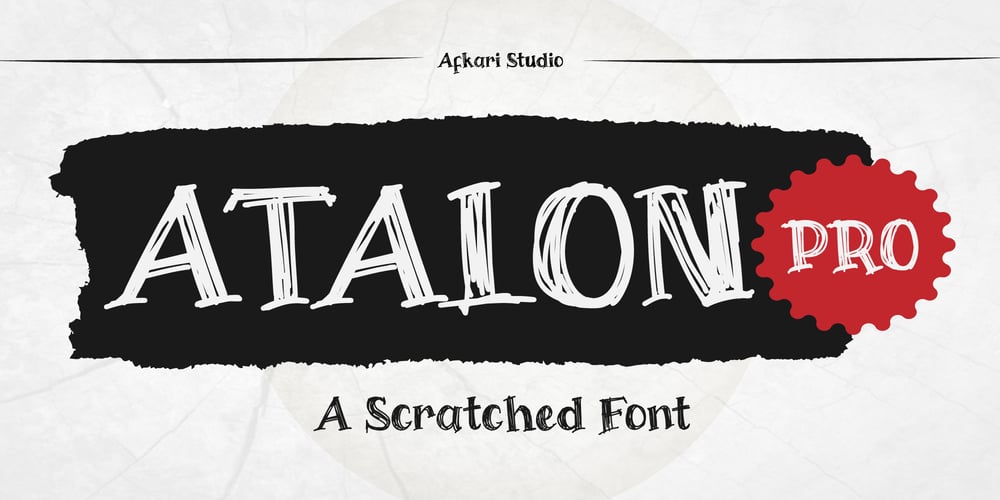
Atalon Pro Font Family was designed by Musthafa Kamal Emje and published by Afkari Studio. Atalon Pro contains 1 styles and family package options. Atalon Pro Is A Scratch Handwritten font made with the natural scratch typeface. Written loosely and with a special balanced look as authentic handwriting font. Atalon A Scratch is Perfect to use in all your projects that call for a natural handwritten, easy legible hand-drawn font.Features: Uppercase Lowercase Numerals & basic punctuations Regular style Multilingual Support Works on PC & Mac Simple installations Accessible in Adobe Illustrator, Adobe Photoshop, Adobe InDesign, and even work on Microsoft Word PUA Encoded Characters Fully accessible without additional design software.